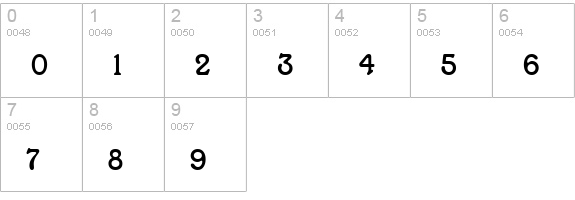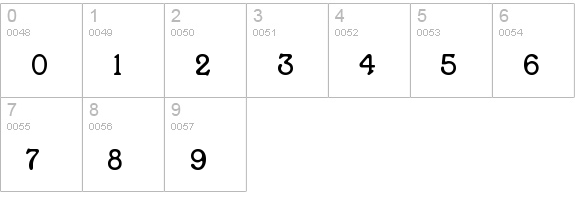
Terra Narrow Normal is the standard, neutral, condensed-width variant in the Terra typeface family \xE2\x80\x94 well suited to general body text, paragraphs, and standard typographic work.
Terra Narrow Normal is a sleek and sophisticated font that combines elegance with versatility. With its slim and narrow design, it exudes a sense of modernity and professionalism, making it the perfect choice for a wide range of design projects. This font features clean lines and balanced proportions, ensuring readability and legibility at various sizes. Whether used for headlines, body text, or captions, Terra Narrow Normal adds a touch of refinement to any project. What sets Terra Narrow Normal apart is not just its visual appeal, but also its accessibility. It is available for free download at FontsMarket.com, making it easily accessible to designers, students, and anyone in need of a high-quality font without breaking the bank. With its extensive character set and multiple weights, Terra Narrow Normal offers a range of possibilities for creative expression. From corporate branding to editorial design, this font adapts effortlessly to any design concept, giving your projects a polished and professional look. Whether you're crafting a logo, designing a website, or creating a brochure, Terra Narrow Normal is a font that combines elegance with functionality. Its clean and modern aesthetic will elevate your designs and leave a lasting impression on your audience. Download Terra Narrow Normal for free at FontsMarket.com and unlock the potential for stunning typography in your next project.